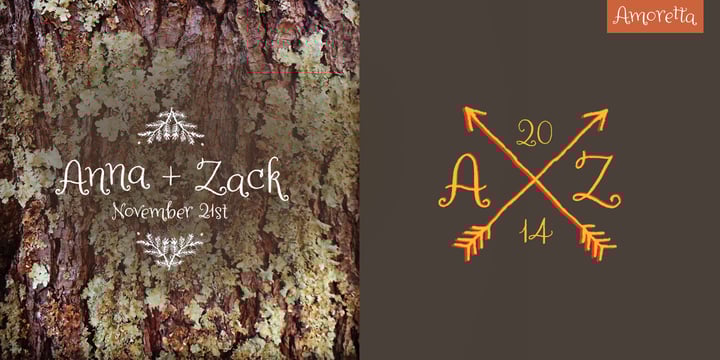
Amoretta
Amoretta™ by Tart Workshop
Amoretta Font Family was designed by Stuart Sandler, Crystal Kluge and published by Tart Workshop. Amoretta contains 5 styles and family package options. More about this family
About Amoretta Font Family
Amoretta = Little Love. Our sweet Amoretta is optimistic & bright. A charming balance of youth and sophistication, Amoretta is full of opportunity for print (Identity projects, stationery, book design, packaging design) or online applications (eBooks, games, websites). Easy to read on small or large scale platforms, she’s the perfect alternative to a script typeface in projects seeking a romantic or feminine touch. As an OpenType family with regular, regular italic, dark, dark italic and ornament fonts that include just the right amount of extras, alternates and ligatures, she’s a delight to work with and make your own. Amoretta’s hand drawn ornaments which reflect the seasons (Spring flowers, Summer foliage, Autumn archery, Winter evergreens) are plump with inspiration for logos and stationery projects. Use them separately or combine the glyphs into a endless assortment of unique designs and patterns. Share a little love with Amoretta.
Designers: Stuart Sandler, Crystal Kluge
Publisher: Tart Workshop
Foundry: Tart Workshop
Design Owner: Tart Workshop